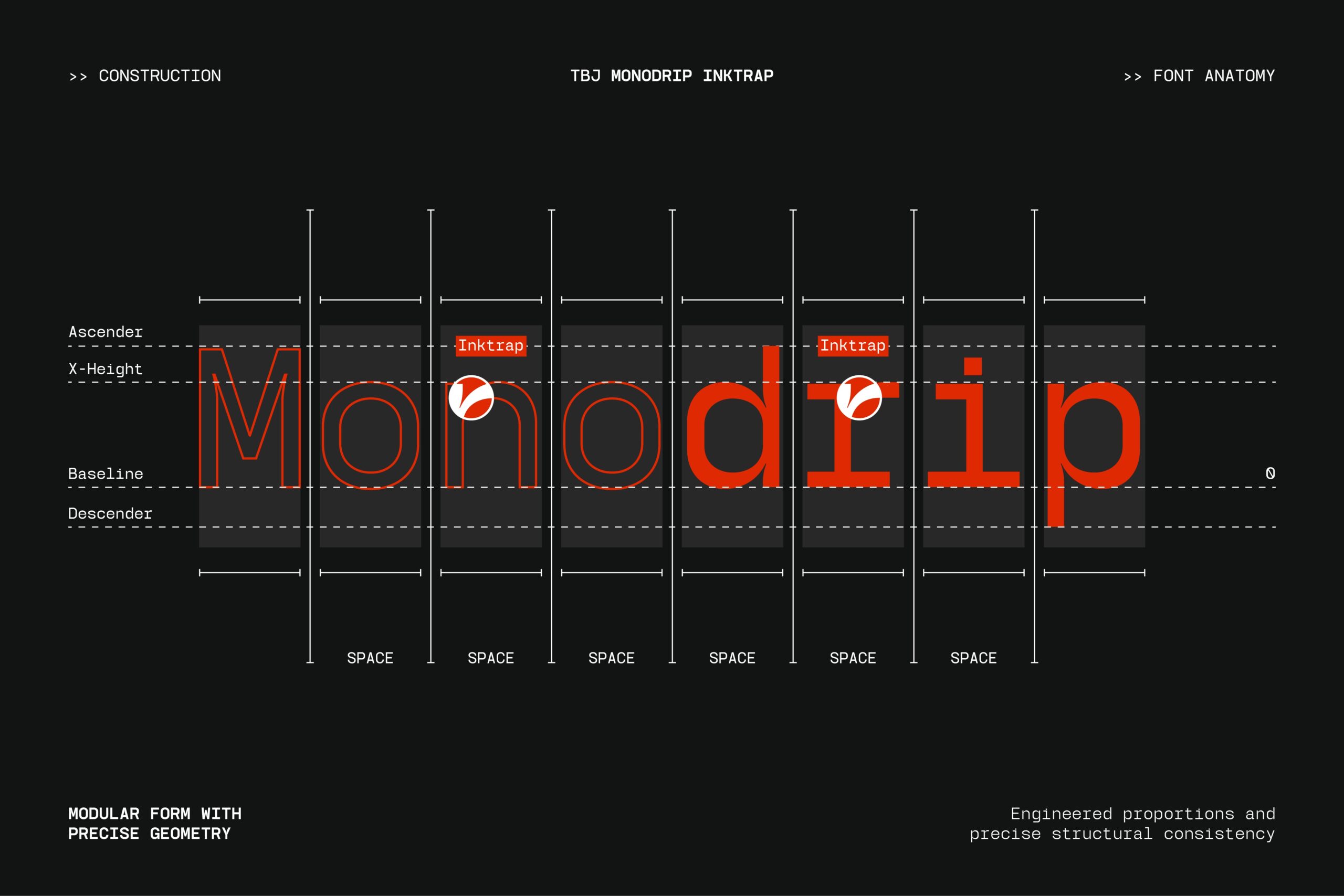
TBJ Monodrip Inktrap Font
TBJ Monodrip Inktrap Font is a modern display font that blends the precision of a monospaced typeface with bold inktrap-inspired details. Designed to make a strong visual impact, this font features geometric letterforms, sharp edges, and distinctive cut-ins that create a clean yet futuristic appearance. Its unique balance of technical structure and creative style makes it an excellent choice for designers seeking a professional and eye-catching typography solution.
Perfect for a wide range of creative projects, TBJ Monodrip Inktrap works beautifully in logos, branding, posters, packaging, advertising, gaming graphics, esports identities, website headers, UI designs, album covers, book covers, social media content, YouTube thumbnails, and editorial layouts. The bold construction ensures excellent visibility in large titles while maintaining a refined and contemporary look.
Inspired by modern technology, industrial design, and futuristic aesthetics, this display font delivers a distinctive personality that helps brands and visual projects stand out. The carefully crafted inktrap details not only enhance the font’s visual appeal but also add depth and character to every letter, making it suitable for both digital and print applications.
Whether you’re creating a cyberpunk-inspired poster, developing a technology brand, designing a modern logo, or producing striking promotional graphics, TBJ Monodrip Inktrap provides the versatility and impact needed to elevate your work. Its clean geometry, strong monospaced style, and innovative inktrap features make it a valuable addition to any designer’s font collection.